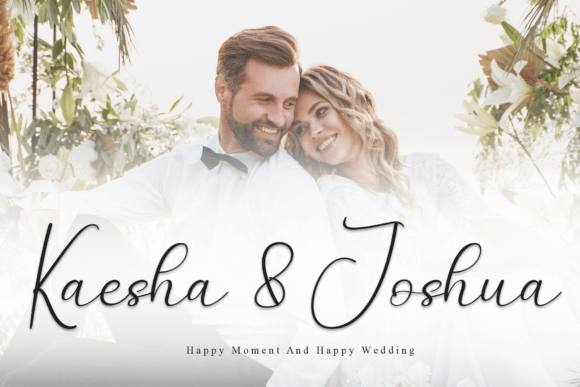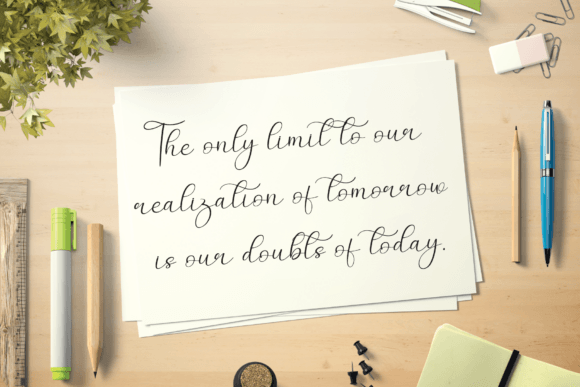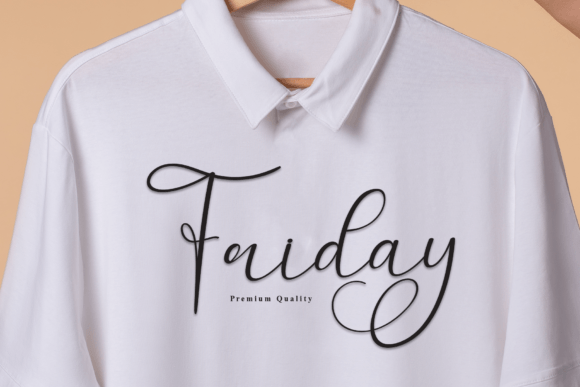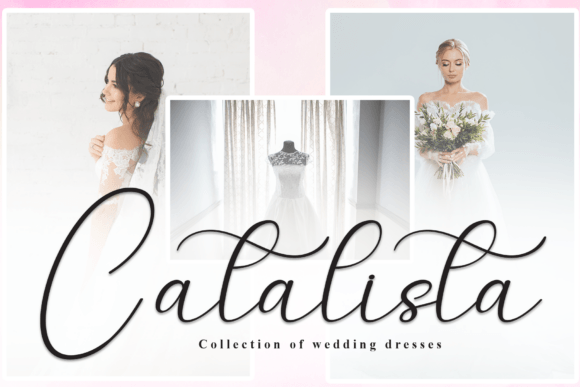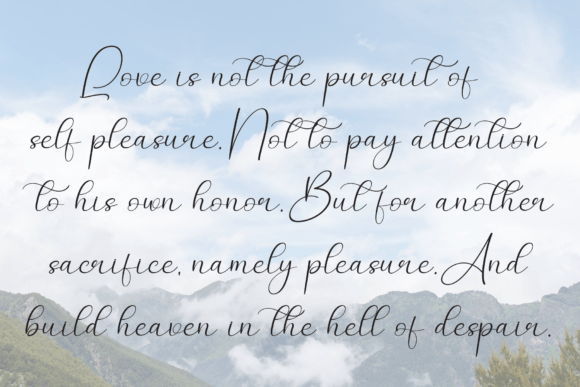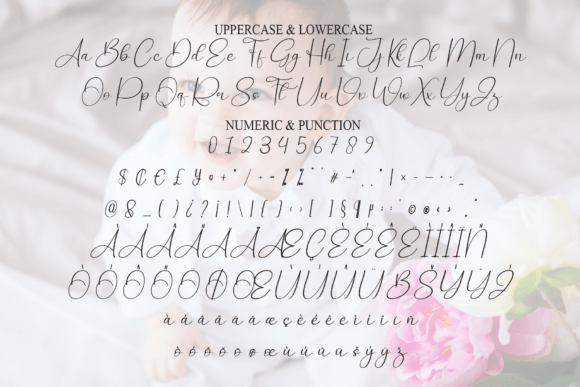
Babyday Font: The Perfect Choice for Playful and Friendly Designs
Are you looking for a font that can add a personal touch to your designs, making them feel special and unique? Look no further than Babyday Font! This charming handwritten font is perfect for creating playful and friendly designs that are sure to capture the attention of your audience. In this article, we’ll take a closer look at the Babyday Font, its features, and how you can use it to elevate your designs.
What is Babyday Font?
Babyday Font is a beautiful handwritten font that is designed to look playful and friendly. Its rounded letters give it a warm and inviting feel, making it perfect for a variety of design projects. Whether you’re creating invitations, greeting cards, or children’s designs, Babyday Font is the perfect choice. The font’s casual style adds a personal touch to any project, making it feel special and unique.
Key Features of Babyday Font
- Playful and Friendly: Babyday Font is designed to look playful and friendly, making it perfect for designs that require a fun and approachable tone.
- Rounded Letters: The font’s rounded letters give it a warm and inviting feel, making it perfect for designs that require a personal touch.
- Casual Style: Babyday Font has a casual style that adds a personal touch to any project, making it feel special and unique.
- Versatile: Babyday Font is versatile and can be used for a variety of design projects, including invitations, greeting cards, and children’s designs.
How to Use Babyday Font in Your Designs
Babyday Font is easy to use and can be incorporated into your designs in a variety of ways. Here are a few ideas to get you started:
- Invitations: Use Babyday Font to create custom invitations for baby showers, birthday parties, and other special occasions.
- Greeting Cards: Add a personal touch to your greeting cards with Babyday Font, making them feel special and unique.
- Children’s Designs: Babyday Font is perfect for children’s designs, including books, posters, and other materials.
- Branding: Use Babyday Font to create a playful and friendly brand identity for your business or product.
Tips for Using Babyday Font Effectively
Here are a few tips for using Babyday Font effectively in your designs:
- Pair with Other Fonts: Babyday Font pairs well with other fonts, including sans-serif and serif fonts. Experiment with different font combinations to find the perfect look for your design.
- Use in Headlines and Body Text: Babyday Font can be used in both headlines and body text, making it a versatile font for a variety of design projects.
- Experiment with Colors: Babyday Font looks great in a variety of colors, including bright and pastel colors. Experiment with different colors to find the perfect look for your design.
Babyday Font is a charming handwritten font that is perfect for creating playful and friendly designs. Its rounded letters give it a warm and inviting feel, making it perfect for invitations, greeting cards, and children’s designs. With its casual style and versatile features, Babyday Font is a great choice for designers and crafters looking to add a personal touch to their designs. Whether you’re creating a custom invitation or a brand identity, Babyday Font is sure to make your design stand out.
- What type of font is Babyday Font? Babyday Font is a handwritten font.